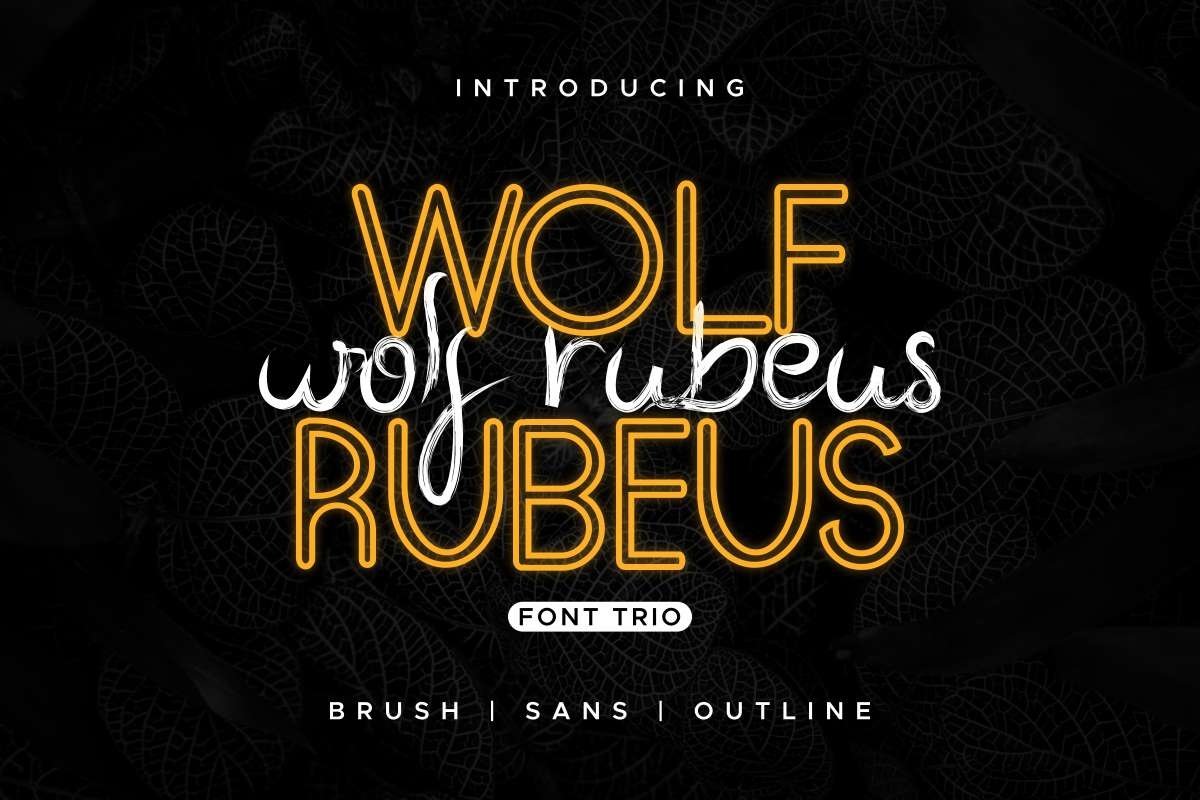
Wolf Rubeus
Hi,Please welcome, one of our newest font : Wolf Rubeus Font Trio . This new font is a signature style font script. This font was made perfectly in our studio in Bandung-Indonesia. It was made by THREE Typeface designers : Deyan, Yasri and Sarah.This font has an exclusive beautiful three signature styles : Sans Display, Outline and Rough Script . The characters of this font is unique, mysterious, horror, grunge, elegant, brush and decorative look. With these styles you can explore many industries and designs categories : Movies, Music, Cafe, florist, gardening, makeup, designers etc . With an extendend you can create anything you want : Branding (logo, stationery, bizcard, head letter, folder etc), promotions stuff (flyer, brochure, postcard etc), Digital marketing (Banner, Ads, cover etc), Invitation, Magazine, Website etcOn the zip package, you will get:
Wolf Rubeus Font Trio has a unique and exclusive glyphs that will be great for many projects categories : Logo type, flyer, stationery, business card, signage, flyer, brochure etc.  With your creativity, there’s no limit using with this typeface.Wolf Rubeus Font Trio Work well on PC & Mac with Simple installations. Accessible in the Adobe Illustrator, Adobe Photoshop, Adobe InDesign, even work on Microsoft Word. It’s also PUA Encoded Characters – Fully accessible without additional design software.Purchase with confidence! =)